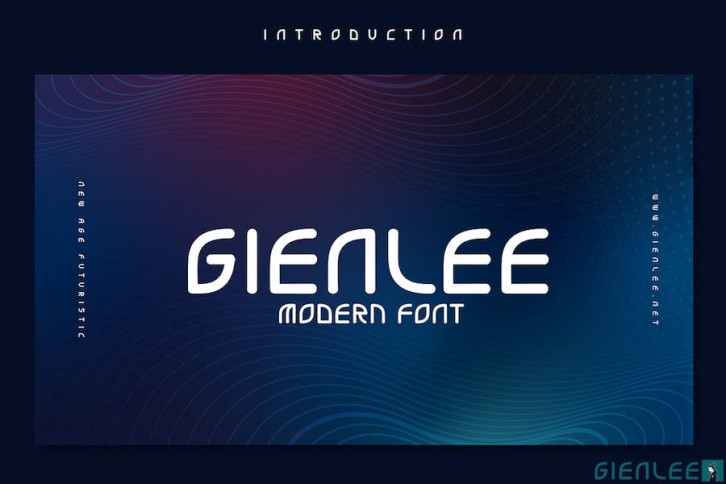
Gienlee is Modern Font. Commonly used for promote any tech and modern stuff kind of life. It's futuristic text for Generation Alpha lifestyle and higher.